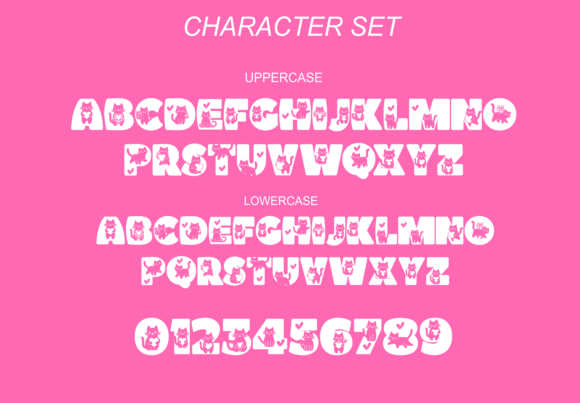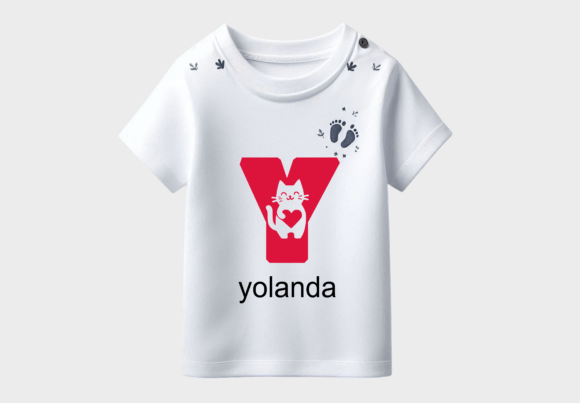
Introduction to Love Cat Font
Venture into the enthralling universe of β€œLove Cat,” an extraordinarily crafted font that embodies the eccentric charisma and dynamic vigor of a mystical world.
Its letters resonate with a hypnotic glow reminiscent of a Jack-O-Lantern’s radiant grin Love Cat flawlessly unites a polished design and lively eeriness, shaping its exceptional character at the vibrant crossroads of daring creativity and jubilant jubilee.
Key Features of Love Cat Font